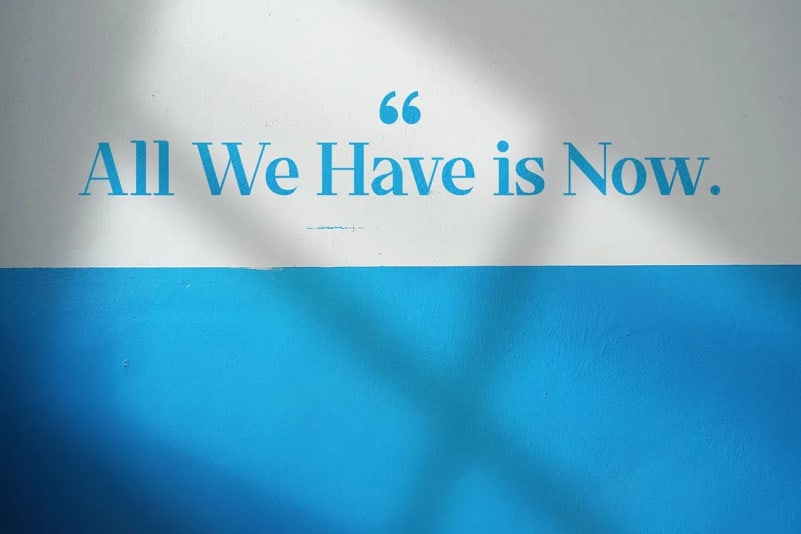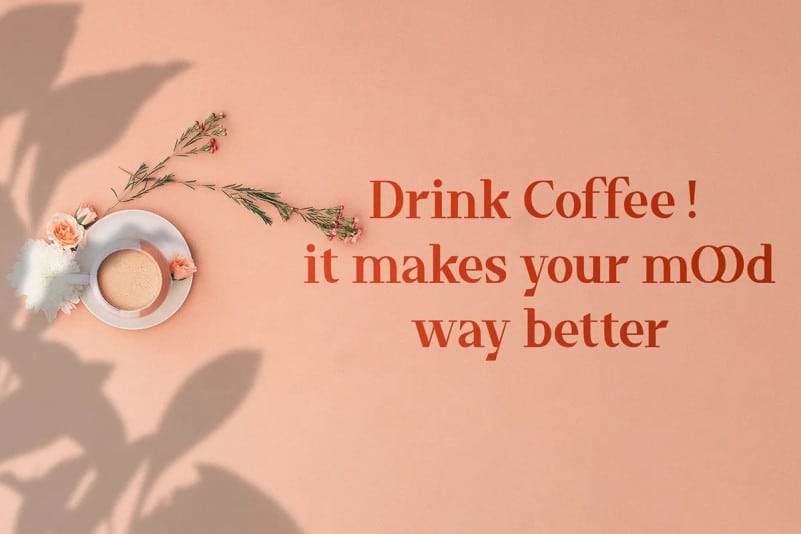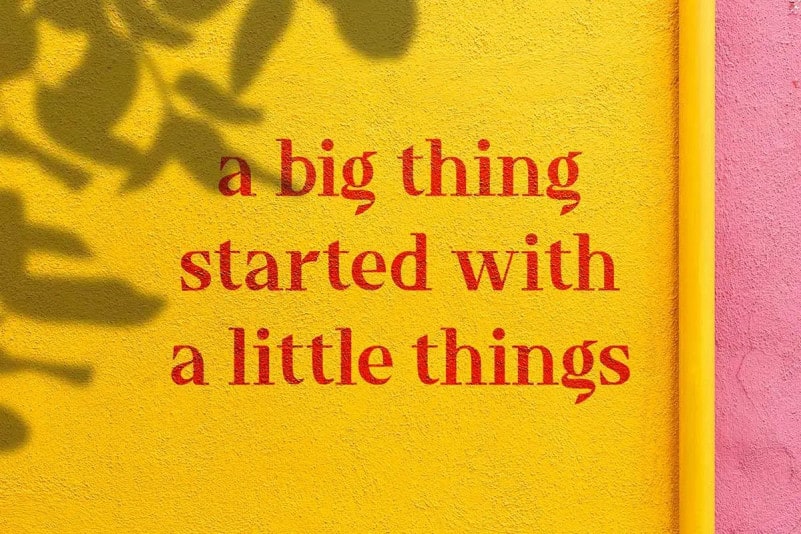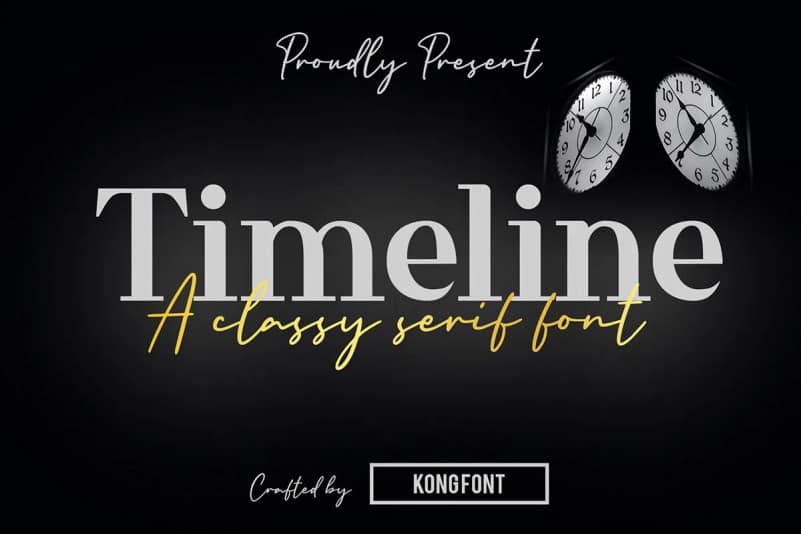
Timeline Serif Font
Introducing Timeline Serif Font is created with well balanced contrast between thick stems and thin crossbar. Smooth combination of curviness and sharpness create elegant and assured figures that look best at medium to large scale. This is perfect to sweeten up your headlines, branding visual identity, editorial, poster, and etc.